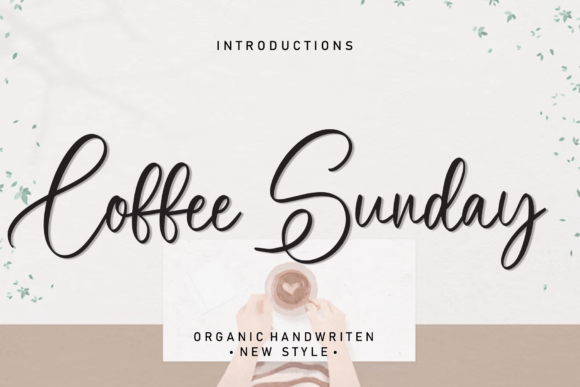
Introducing the Coffee Sunday Font - the perfect addition to your font collection! This dazzling script font, created by andikastudio, is the ultimate choice for anyone looking for the best fonts for fashion logo designs.
Crafted with precision and attention to detail, Coffee Sunday is a font that is sure to elevate your designs to the next level. Its unique style and creative flair make it a perfect choice for any project, whether you're designing a logo, creating social media graphics, or crafting a beautiful website.
But Coffee Sunday isn't just a pretty face - it's also incredibly versatile. This font can be used in a wide range of projects, from modern to vintage and everything in between. Its timeless appeal and elegant design make it a font that you'll want to use again and again.
With Coffee Sunday in your font library, you'll never have to worry about finding the perfect font for your project. This font is a true gem that will take your designs to new heights. So why wait? Download Coffee Sunday today and start creating beautiful, eye-catching designs that will leave a lasting impression.